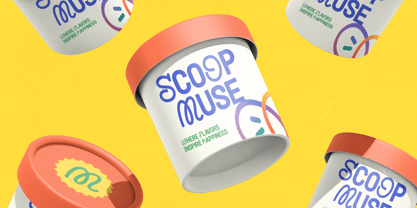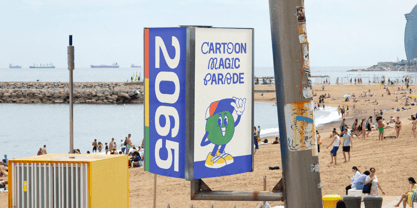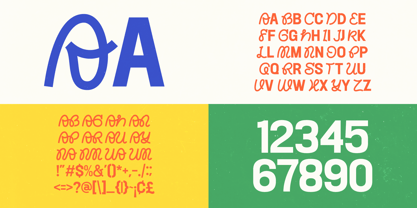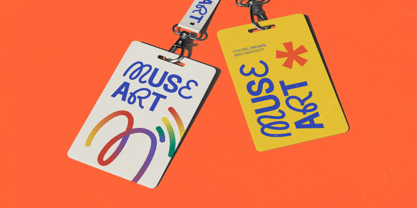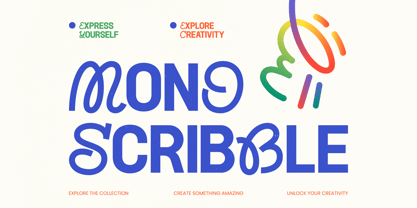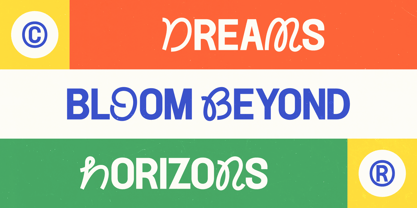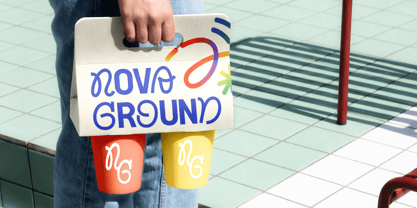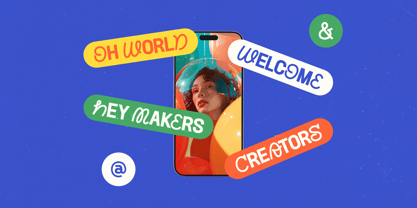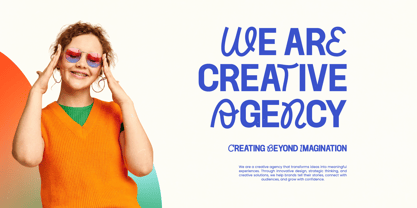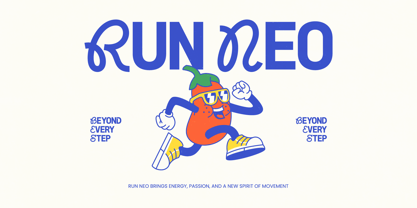
Mono Scribble
La familia tipográfica Mono Scribble fue diseñada por Heru Utama Putra y publicada por Timelesstype Studio. Mono Scribble contiene 2 estilos y opciones de paquete familiar. Más información sobre esta familia
Mono Scribble - Experimental Serif Display, a typeface that masterfully blends an avant-garde aesthetic with functional design. This experimental serif captures the essence of contemporary art through its unique fusion of monolinear scribbles and bold display structures. By challenging traditional type conventions, Mono Scribble - Experimental Serif Display offers a distinctive visual language that ensures your message stands out in a crowded digital landscape.
Engineered for the global creative stage, this font provides the technical robustness required for high-stakes commercial projects. With its extensive multilingual support, Mono Scribble - Experimental Serif Display adapts seamlessly across global markets, making it incredibly versatile for international projects. Whether you are working on digital interfaces or print media, the inclusion of professional file formats ensures a smooth workflow for every designer.